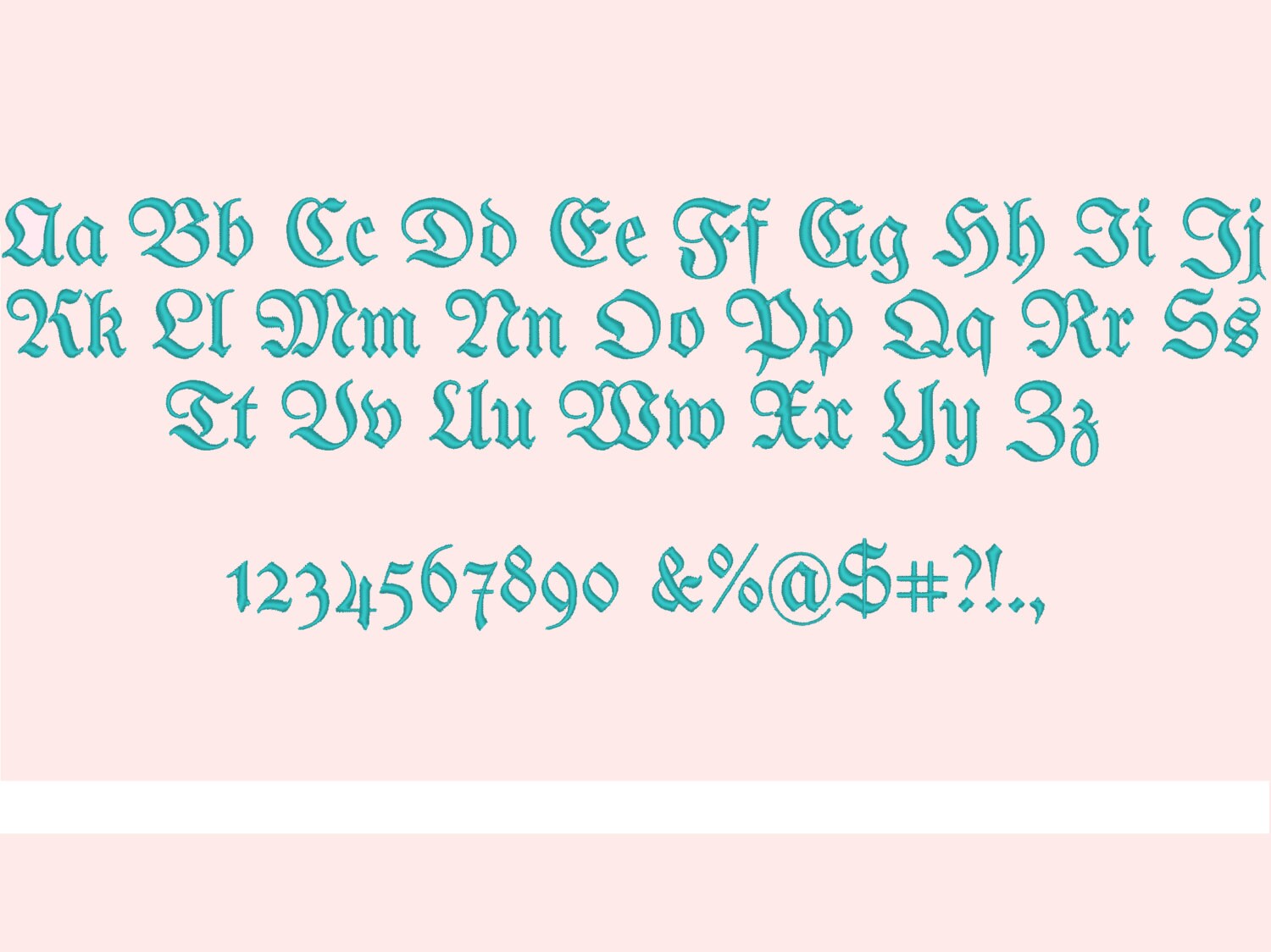
Fairy tale Font machine embroidery designs in mini sizes from 0.5 up to 1.5 inches gothic medieval old book alphabet monogram, BX included
Uppercase and lowercase letters, numbers and punctuation